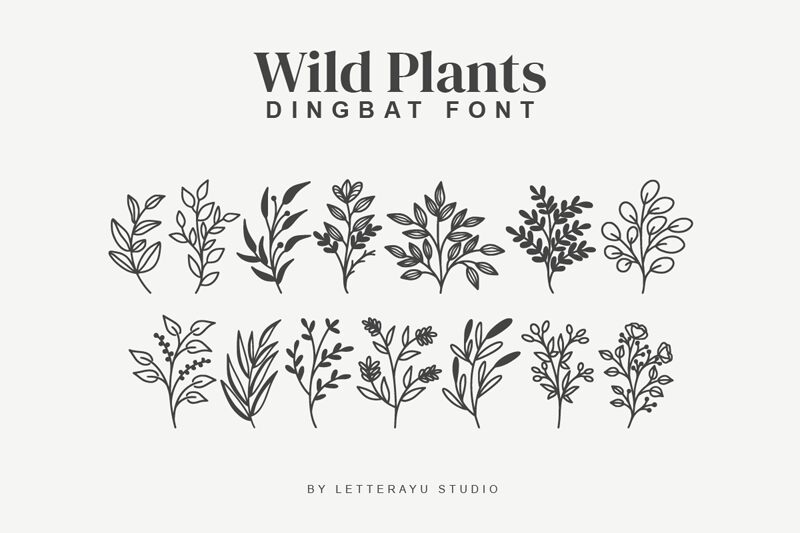
Wildplants by Letterayu brings the essence of nature's beauty into the world of typography with its charming collection of dingbat fonts. Each character in this set is a delightful portrayal of various foliage designs, meticulously crafted to capture the whimsical and organic shapes found in wild flora. The aesthetic appeal of Wildplants lies in its intricate details and natural elegance, effortlessly lending itself to projects that require a touch of botanical grace.
The font's nature-inspired style exudes a serene and earthy vibe, making it an ideal choice for branding, wedding invitations, stationery, packaging design, and environmental graphics. Its versatility allows designers to infuse their work with a sense of growth and vitality that only nature can inspire. With Wildplants, creative professionals can effortlessly integrate the serenity of outdoor landscapes into their designs, ensuring each composition blooms with creativity and natural sophistication.